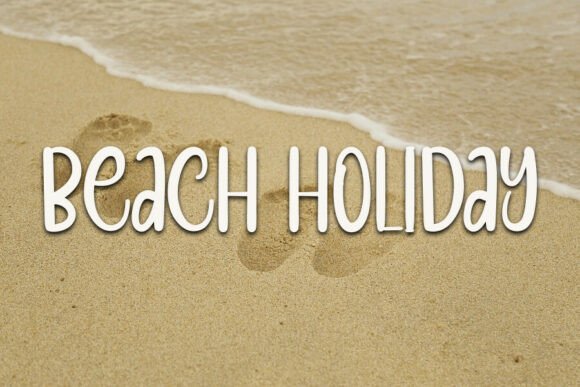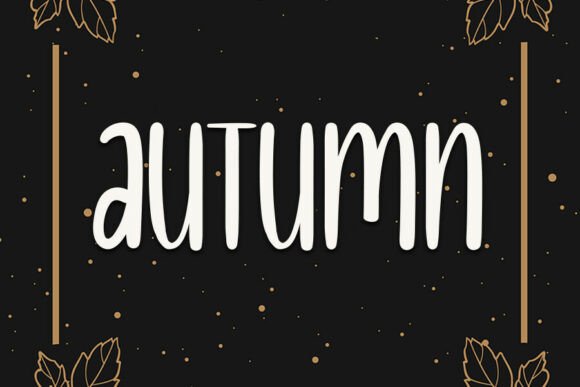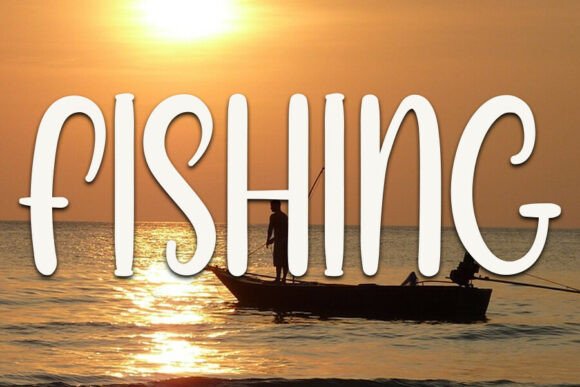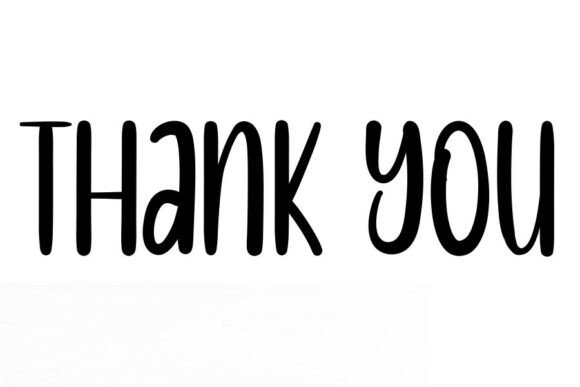
Introducing Beloved Font: The Simple Handwritten Font for All Your Design Needs
Are you a designer, crafter, or DIY enthusiast looking for a font that can add a personal touch to your projects? Look no further than Beloved Font, a simple yet versatile handwritten font that’s perfect for a wide range of applications. From greeting cards to headlines, Beloved Font is guaranteed to bring a simple and natural feel to your next project.
Handwritten fonts have a way of adding a personal touch to any design project. They evoke a sense of warmth, friendliness, and approachability that’s hard to replicate with more formal fonts. Beloved Font takes this to the next level with its simple, elegant, and highly legible design. Whether you’re creating a handmade card, a blog post, or a social media graphic, Beloved Font is the perfect choice.
What Makes Beloved Font So Versatile?
So, what makes Beloved Font so versatile? For starters, its simple design makes it easy to read and understand, even at small sizes. This means you can use it for everything from body text to headlines, without worrying about it getting lost in the noise. Additionally, Beloved Font has a neutral tone that works well with a wide range of design styles, from rustic and vintage to modern and minimalist.
Applications for Beloved Font
So, what can you use Beloved Font for? The possibilities are endless! Here are just a few ideas to get you started:
- Greeting Cards: Add a personal touch to your handmade cards with Beloved Font. It’s perfect for birthdays, holidays, and special occasions.
- Headlines: Use Beloved Font to add a touch of elegance to your headlines. It’s perfect for blog posts, social media graphics, and more.
- Signs and Posters: Create eye-catching signs and posters with Beloved Font. Its simple design makes it easy to read from a distance.
- Invitations: Make your invitations stand out with Beloved Font. It’s perfect for weddings, baby showers, and other special occasions.
- Branding: Use Beloved Font to create a consistent brand identity. Its neutral tone works well with a wide range of colors and design styles.
Why Choose Beloved Font?
So, why choose Beloved Font over other handwritten fonts? Here are just a few reasons:
- Simple and Elegant: Beloved Font has a simple, elegant design that’s easy to read and understand.
- Highly Legible: Beloved Font is highly legible, even at small sizes.
- Neutral Tone: Beloved Font has a neutral tone that works well with a wide range of design styles.
- Easy to Use: Beloved Font is easy to use and pairs well with a wide range of other fonts.